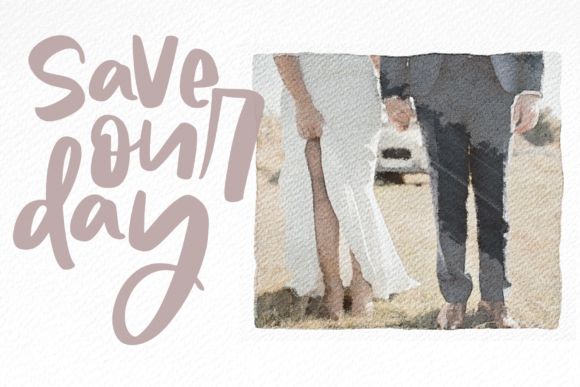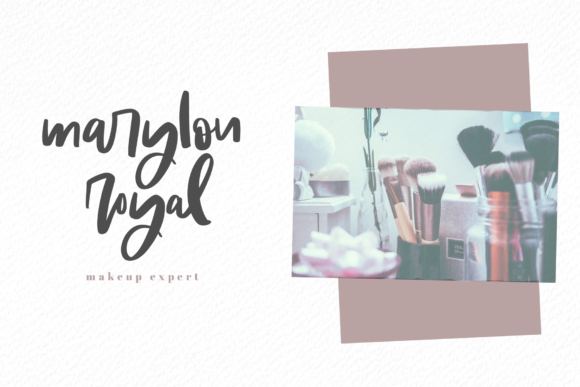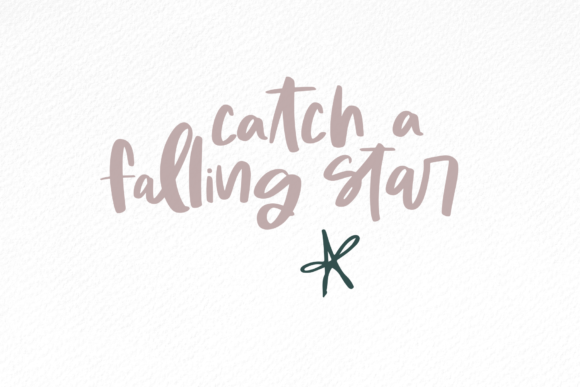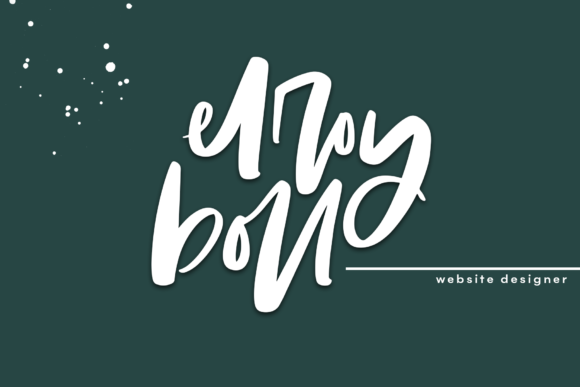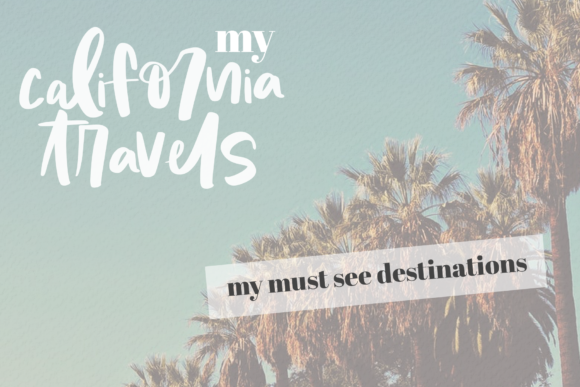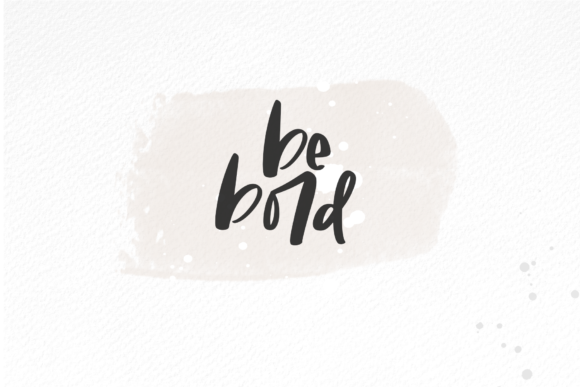
Introduction to Molly & Elroy Font
As a crafter, there’s nothing quite like the feeling of bringing a creative project to life. The sound of scissors cutting through paper, the smell of glue drying, and the satisfaction of watching your design come together – it’s a sensation that never gets old. But, let’s face it, the right font can make all the difference in making your project truly special.
That’s where the Molly & Elroy Font comes in – a cute and fun script that’s perfect for adding a personal touch to your crafting endeavors. With its smooth and bold letters, this font is a design resource that’s sure to elevate your projects to the next level.
Key Features of Molly & Elroy Font
- Unique and playful design, perfect for creative projects and children’s materials
- High-quality font with crisp and clear lettering, ideal for print and digital use
Honest Review: Molly & Elroy Font
I recently stumbled upon the Molly & Elroy Font and I’m excited to share my thoughts with you. As a designer, I’m always on the lookout for high-quality design resources that can elevate my creative projects. In this review, I’ll break down what works well and what might be a limitation.
- Cute and playful characters: The Molly & Elroy Font is perfect for projects that need a touch of whimsy and fun.
- High-quality design: The font is well-crafted and looks great on various backgrounds, including transparent backgrounds.
- Limited character set: The font might not be suitable for projects that require a wide range of characters, such as logotypes or text-heavy designs.
- No bold or italic variations: If you need bold or italic versions of the font, you might need to look elsewhere.
Overall, I think the Molly & Elroy Font is a great addition to any designer’s toolkit. It’s perfect for creative projects that require a touch of personality and fun. While it might have some limitations, it’s still a high-quality design resource that’s worth considering.
Molly & Elroy Font
Tips for Getting the Most Out of Molly & Elroy Font
- Experiment with different font sizes and styles to add depth to your designs.
- Combine the Molly & Elroy Font with other design elements to create a unique look.
- Use the font on a transparent background to create a sense of layering and dimension.